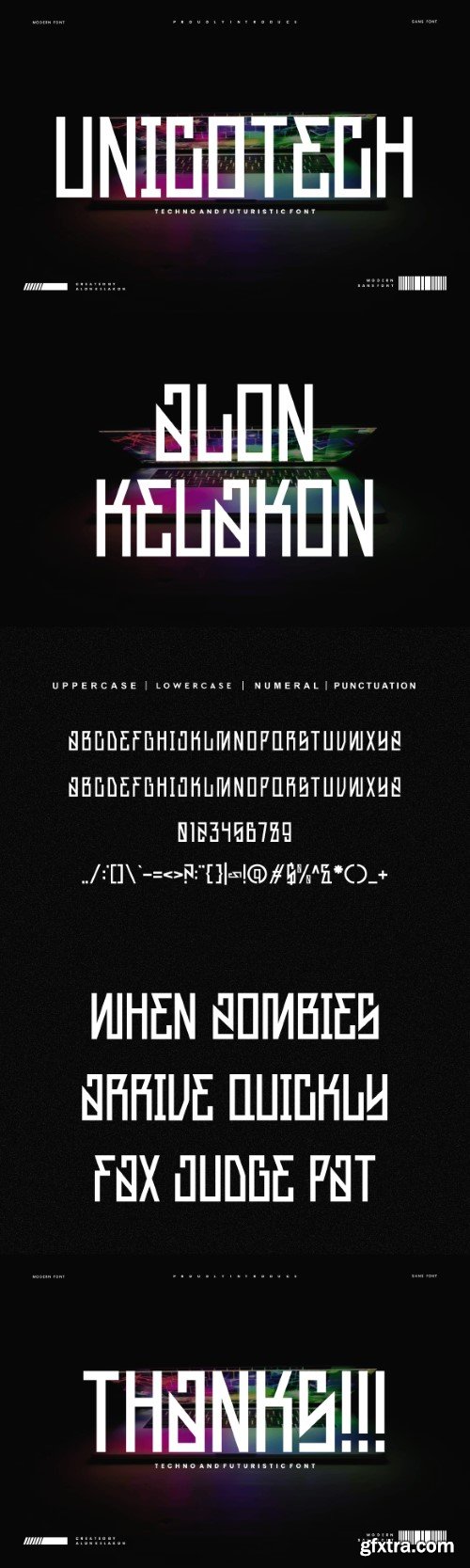
Unicotech - Futuristic & Modern Tech Font
Unicotech Font is unique . Ready to use for your design like labeling, movie sceen, poster, movie title, gigs, album covers, logos, and much more.